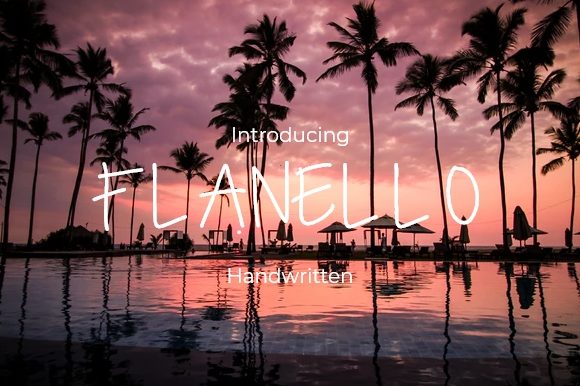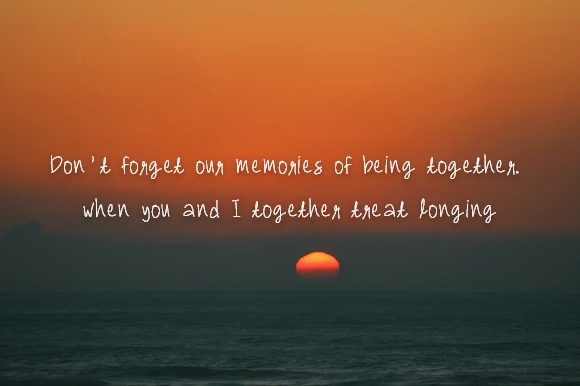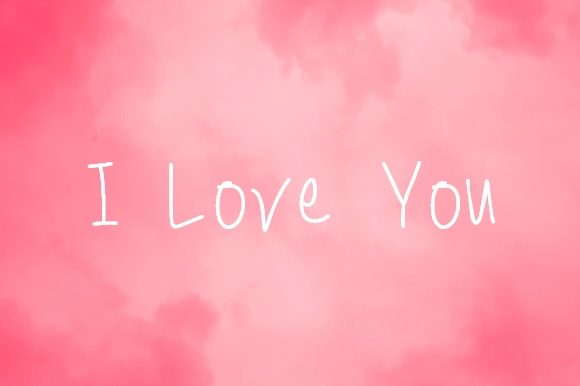
Flanello Font
About Flanello Font
Flanello is a casual and fun handwritten font. Clean and a little bit quirky, this font is the perfect fit for all of your logos, branding, social media, and crafty DIY projects.